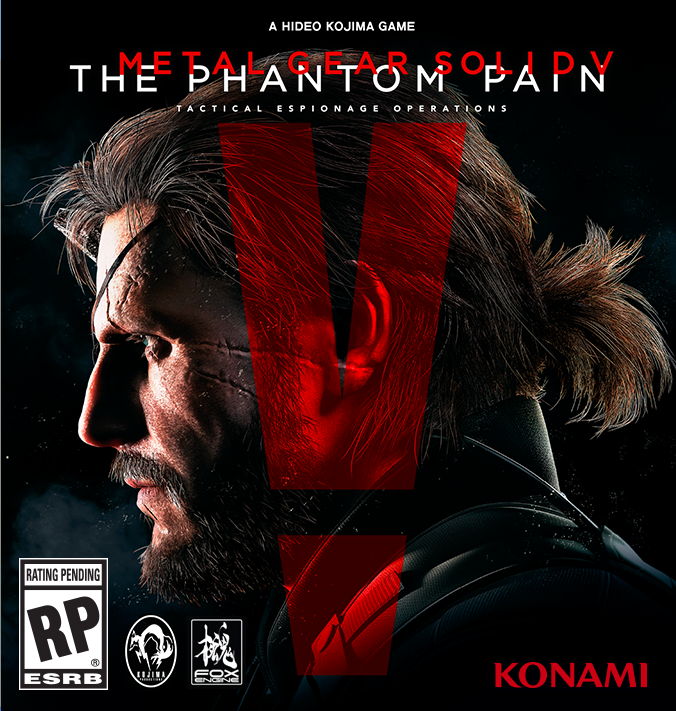
The Phantom Pain Font
Action & AdventureMetal Gear Solid V: The Phantom Pain is an action-adventure stealth game developed and published by Konami. It is the ninth main installment in the Metal Gear series and the final one developed by Hideo Kojima, the series creator. The game is set in 1984, following the events of the prequel game, Metal Gear Solid V: Ground Zeroes.
The Phantom Pain logo uses the geometric sans serif font Gotham Medium by Tobias Frere-Jones. You can preview and purchase the font on typography.com.